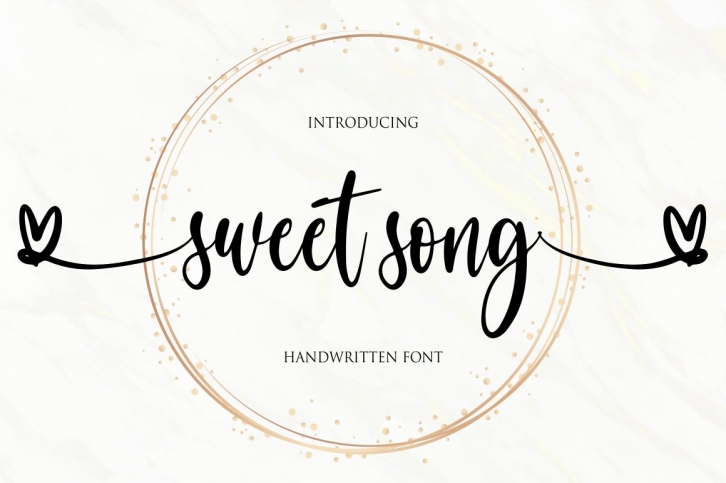
sweet song is a great font that was designed by NJ Studio. Imagine the amount of combinations you can create using this font! The archive is 11.47 MB and it was released on April 29, 2021. sweet song looks beautiful on wedding invitations, greeting cards, logos, posters, labels, t-shirt designs, logos, business cards and is perfect for use in ink or watercolor works, fashion, magazines, packaging and food menus, children's books and more!